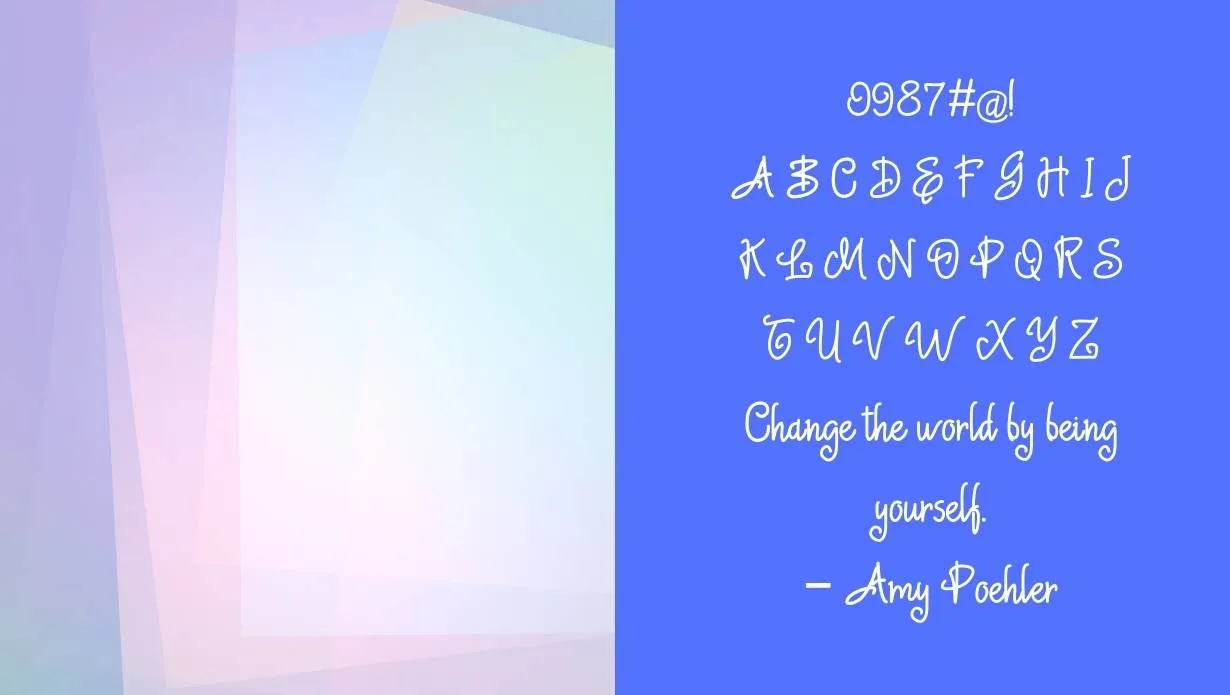
Baby Sophia Font is a script typeface that was designed by Emily Spadoni. The aim of this typeface is to create a feeling of warmth and friendliness, whilst also being stylish and modern. This makes it perfect for any baby-themed project.
It is available in three special weights – Light, Regular and Bold. each with its own unique character. Its wide variety of characters means that it can be used for a wide range of different projects. Its similar santelia font is perfect for many projects and functions. It is best for use in Adobe Photoshop.
Baby Sophia Font Family
| Name | Baby Sophia Font |
| Designer | Emily Spadoni |